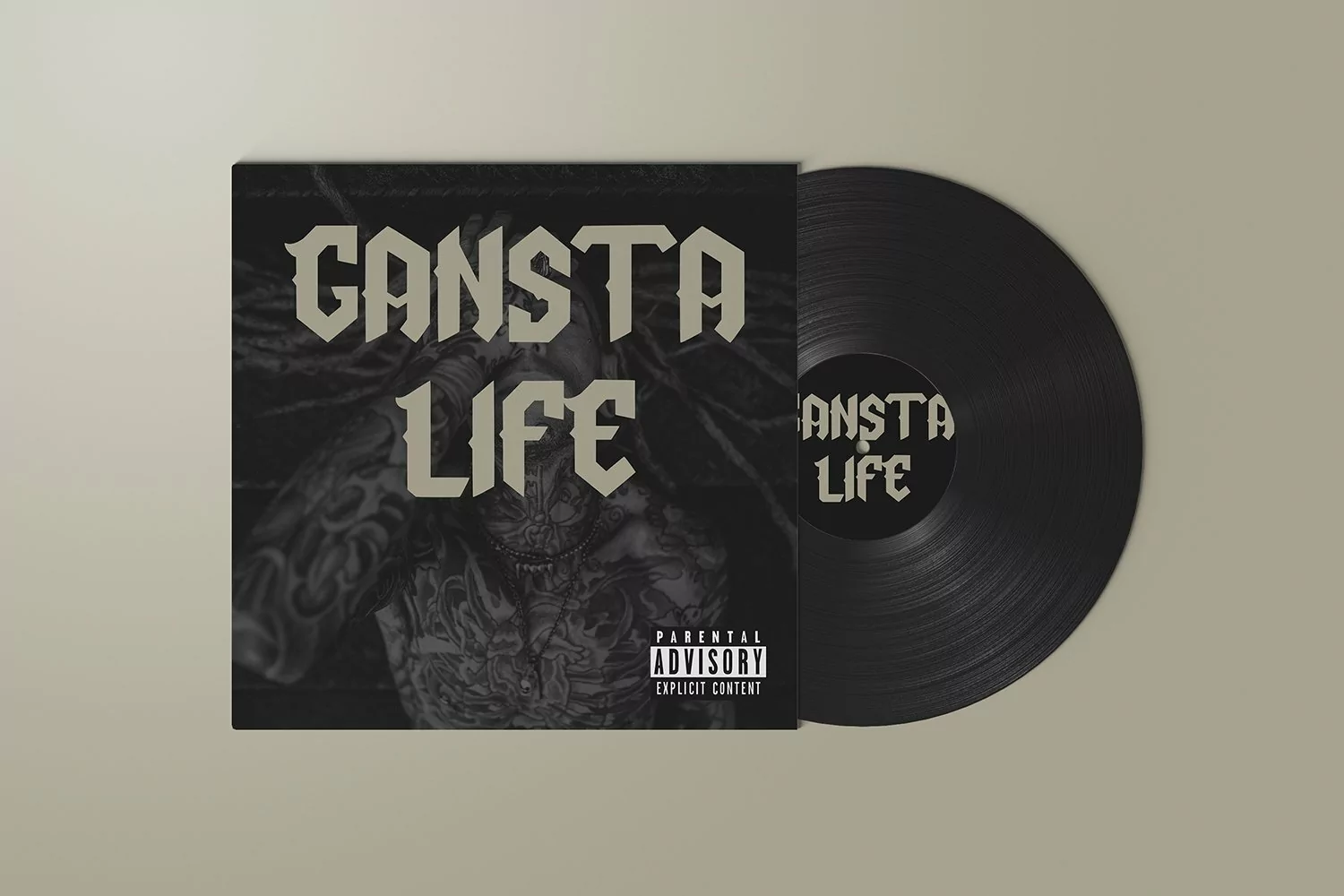
Blacklnked - A Tattoo Style Font that contain lowercase, uppercase, symbol, and also support multi language. There’s a lot ligatures in this font. This Font also comes with ligatures, alternates and many more. this font suitable for fashion, branding, catalog and other design what you want.